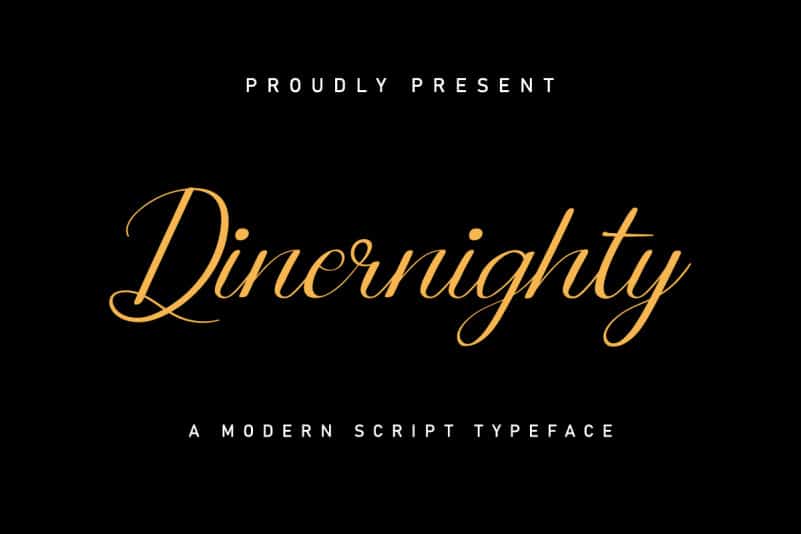
Dinernighty Calligraphy Font DEMO
Dinernighty Calligraphy Font is a Calligraphy script font. The style of this font are elegant, luxury, glamour and classic brush pen.